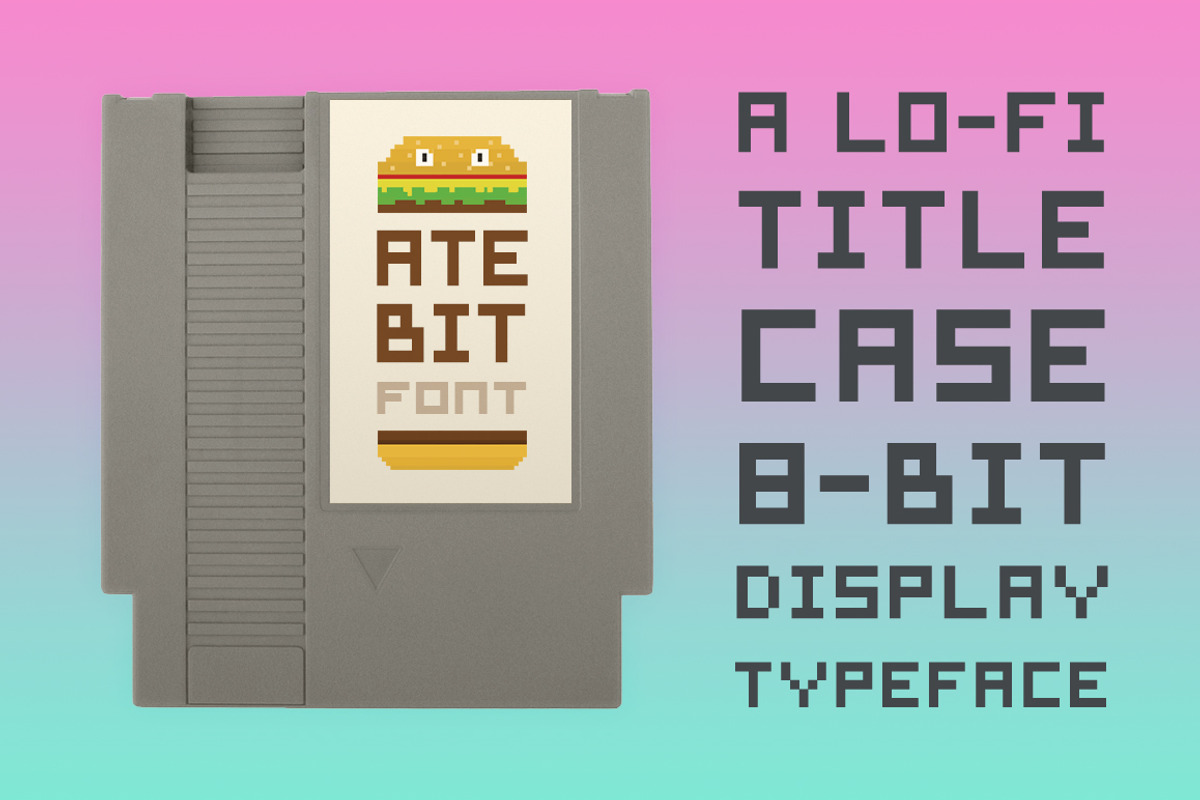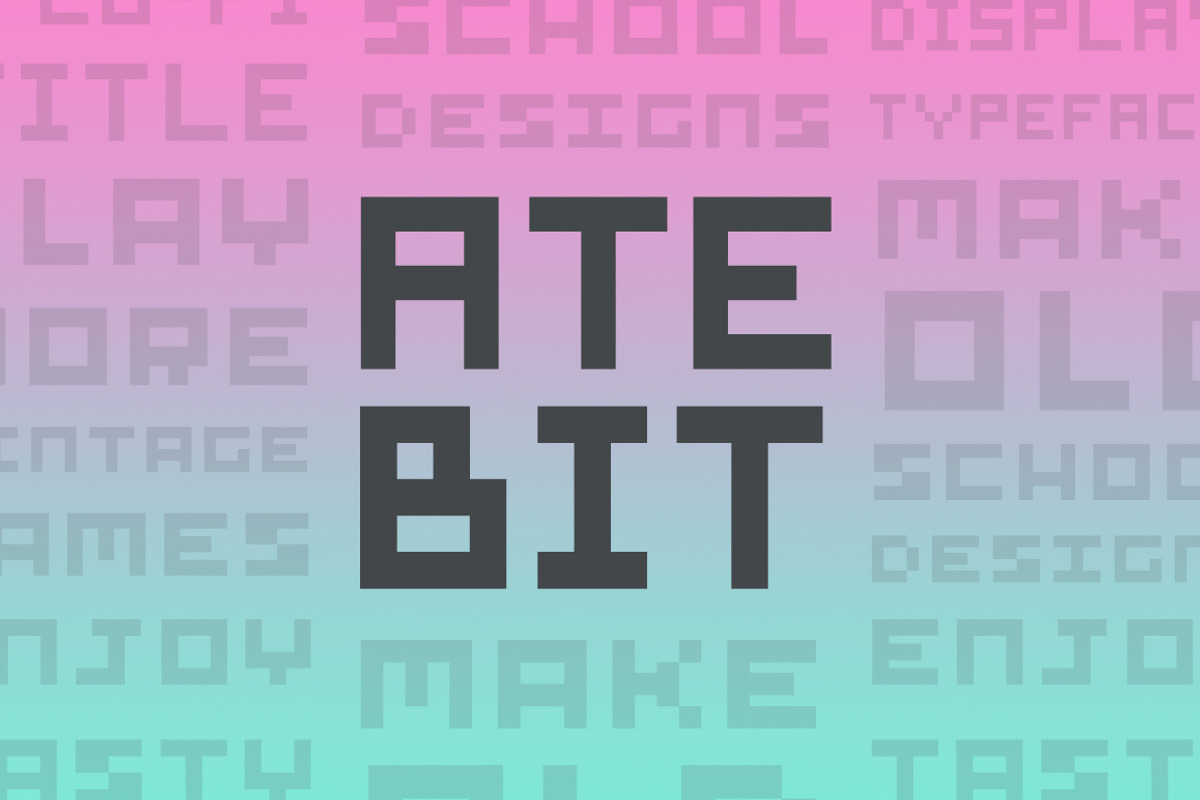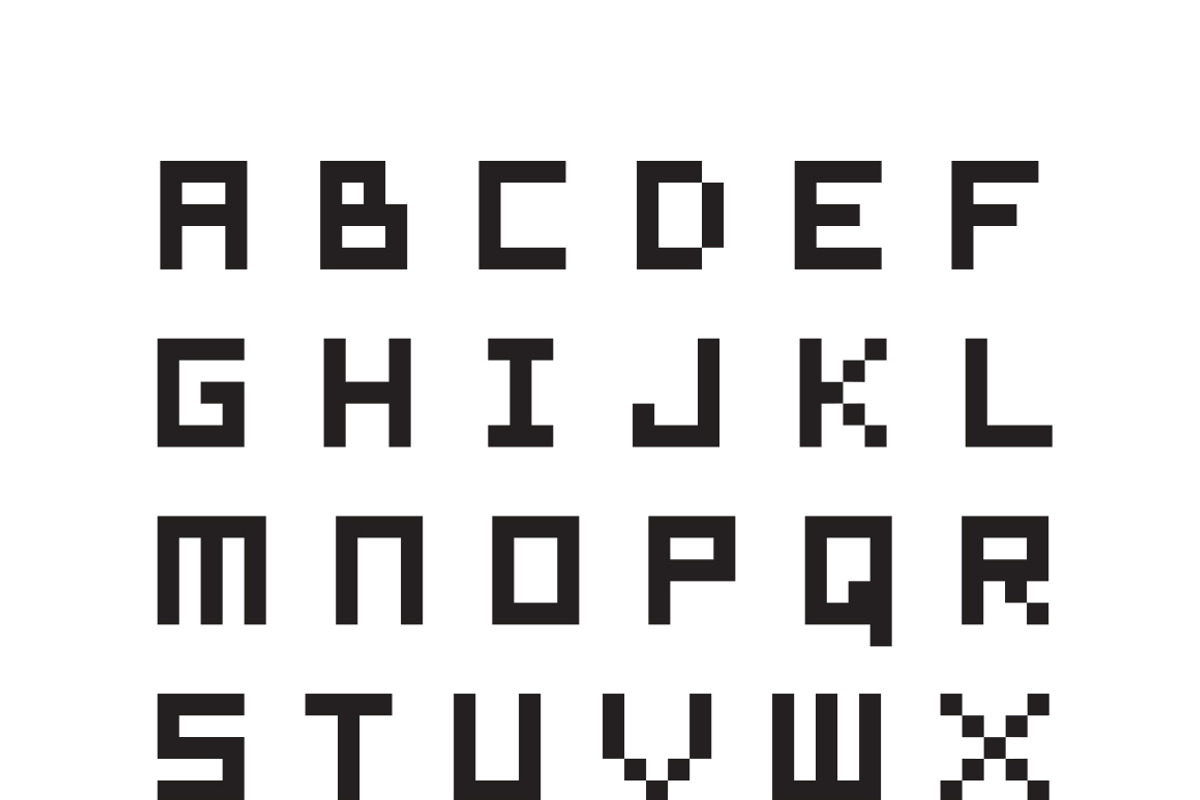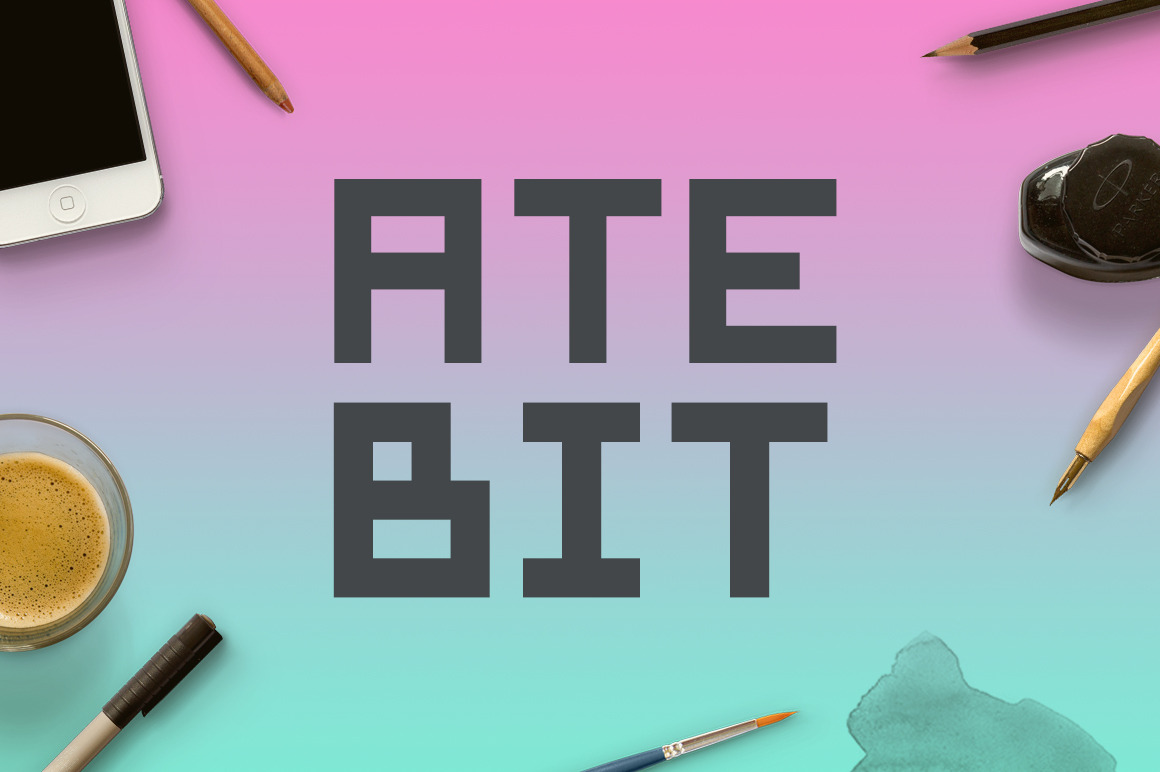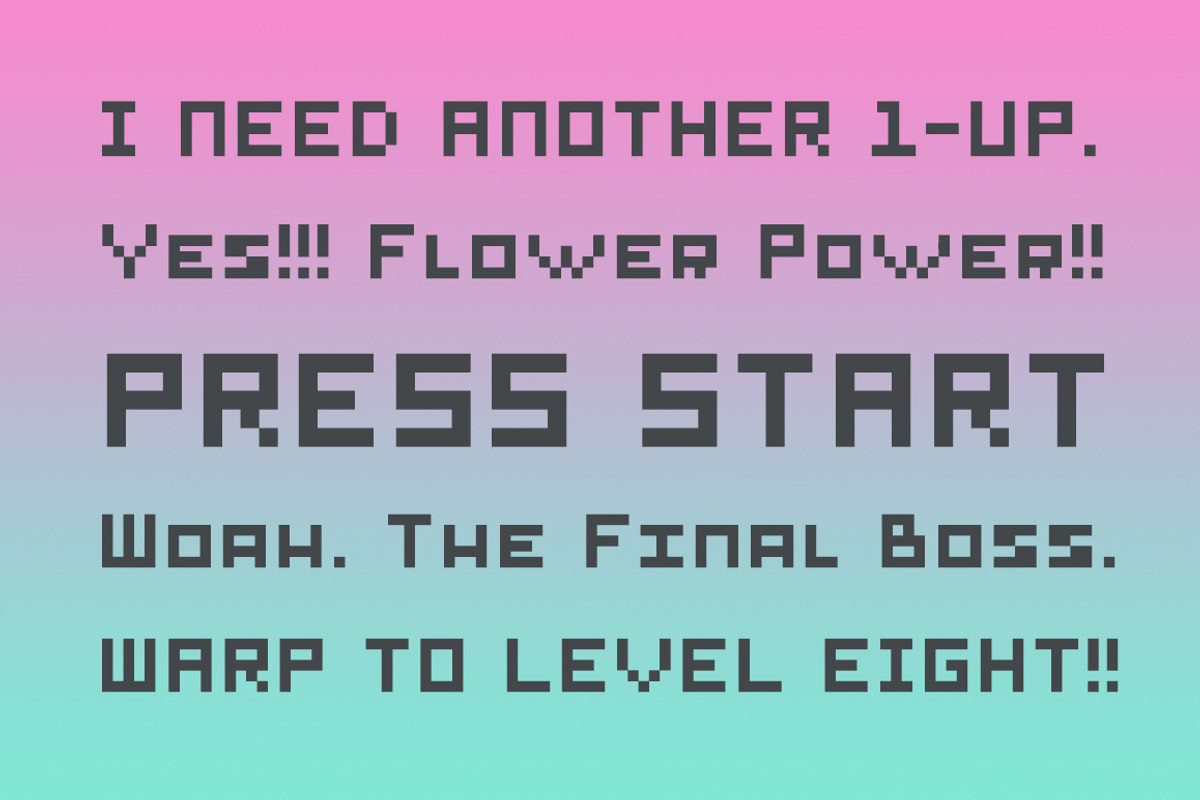
Ate Bit Font
Ate Bit is an 8-bit display font that makes it easy to write in title case with that nostalgic 80s feel. It's good for any design project that you want to throwback to 1980! The uppercase and lowercase letters are set in title case.